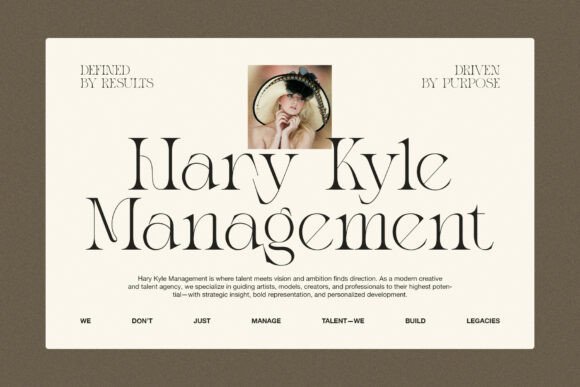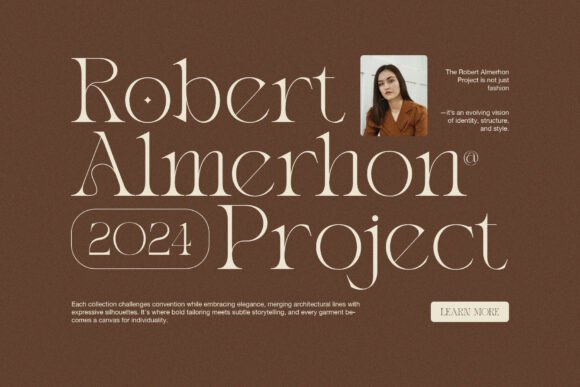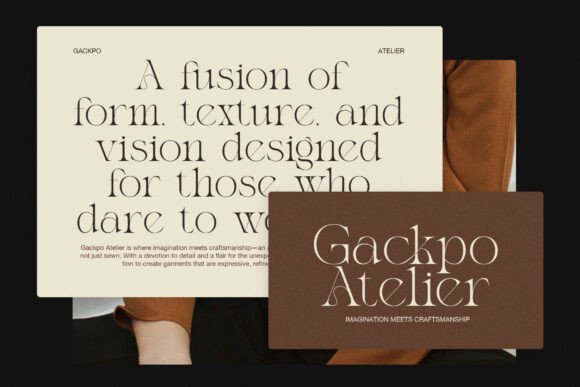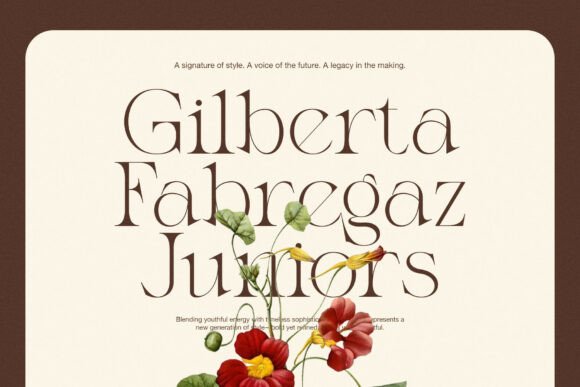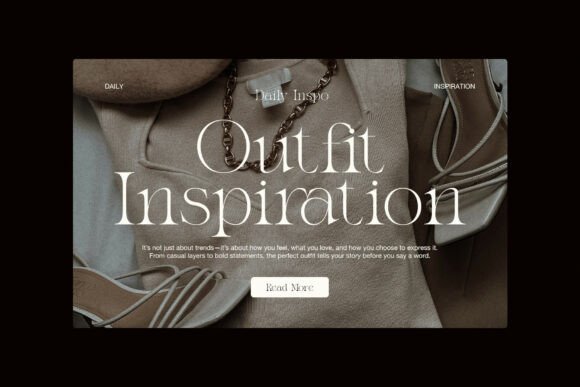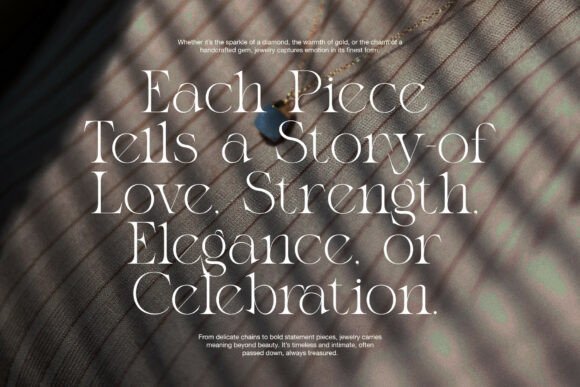
Introduction to Midkon Font
Midkon is a modern elegant serif font built to give your brand a refined and professional image.
With well-balanced proportions and stylish ligatures, this typeface blends beauty with functionโmaking it ideal for any premium design project Midkon was crafted for creatives, agencies, and businesses that want their visual content to feel polished, upscale, and timeless.